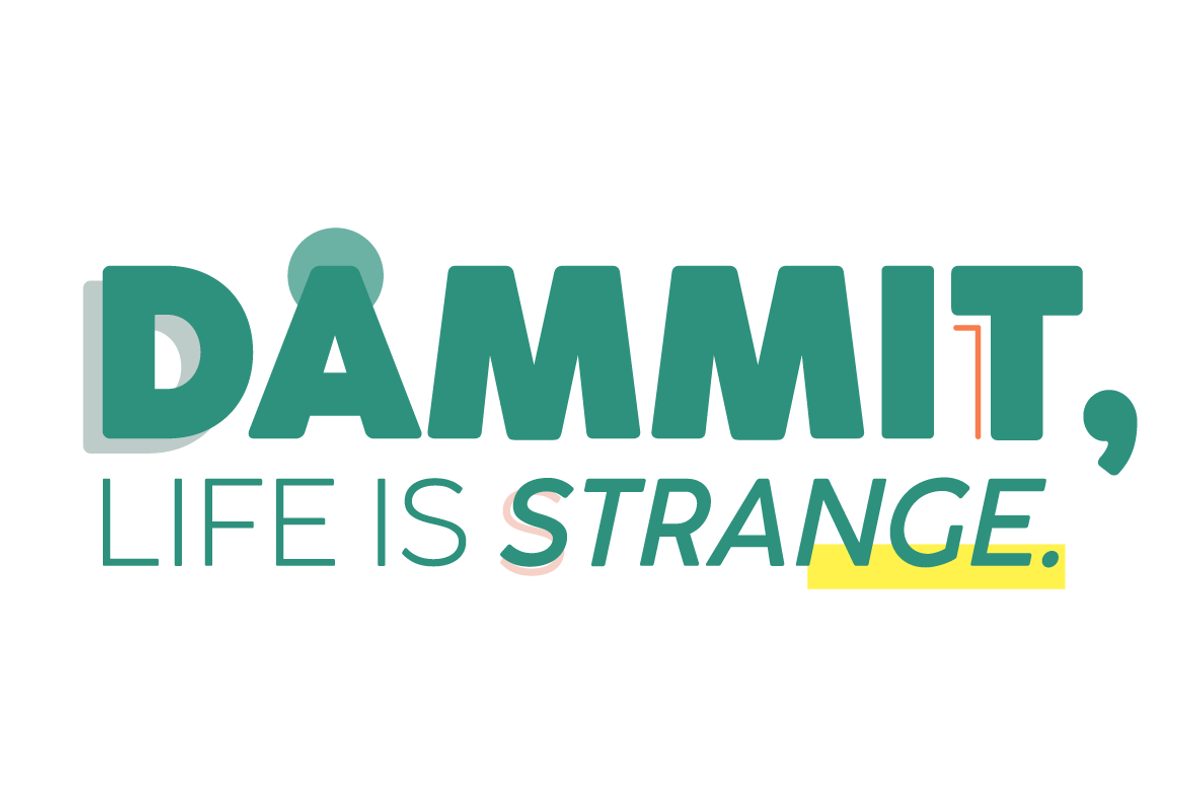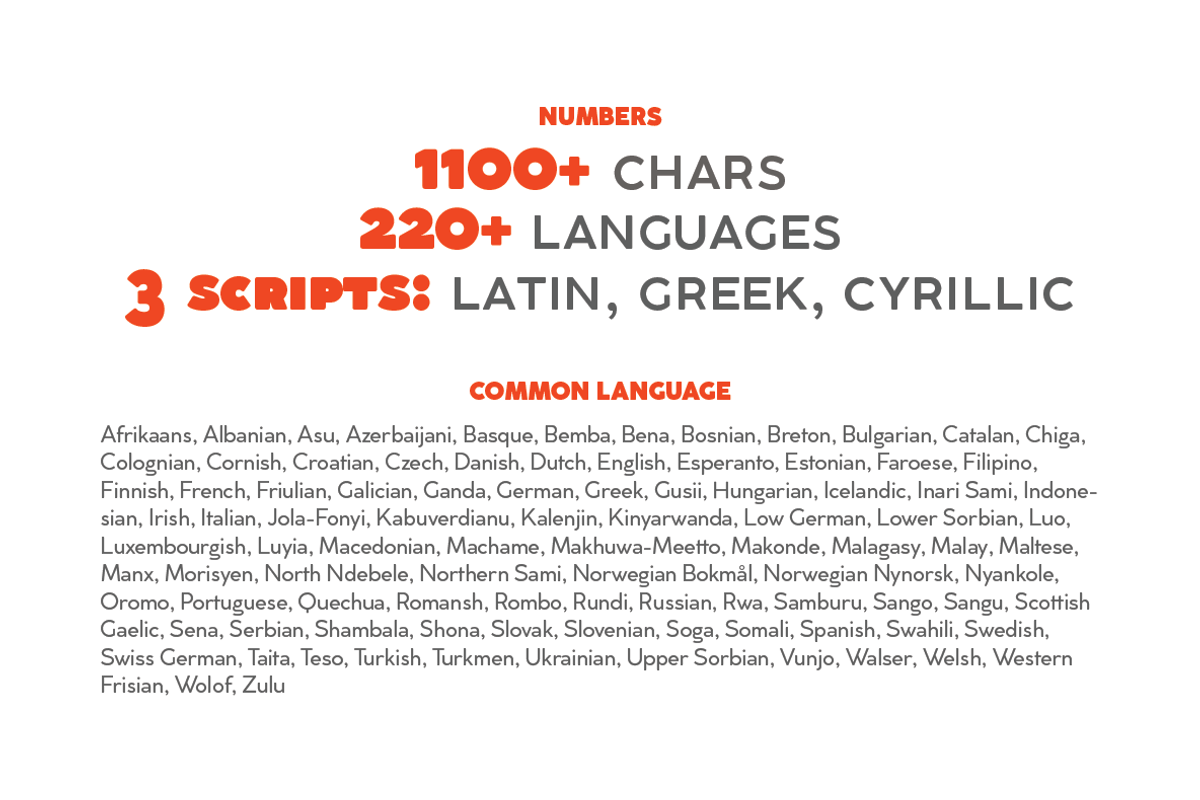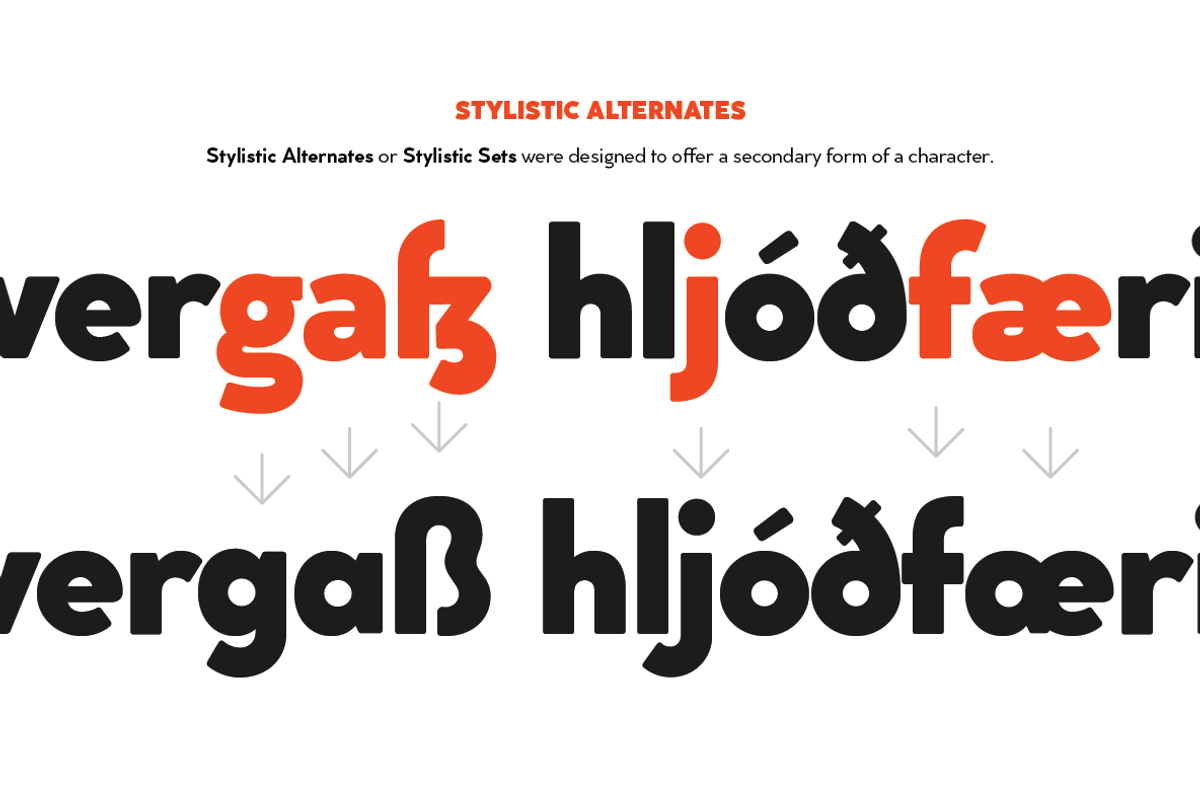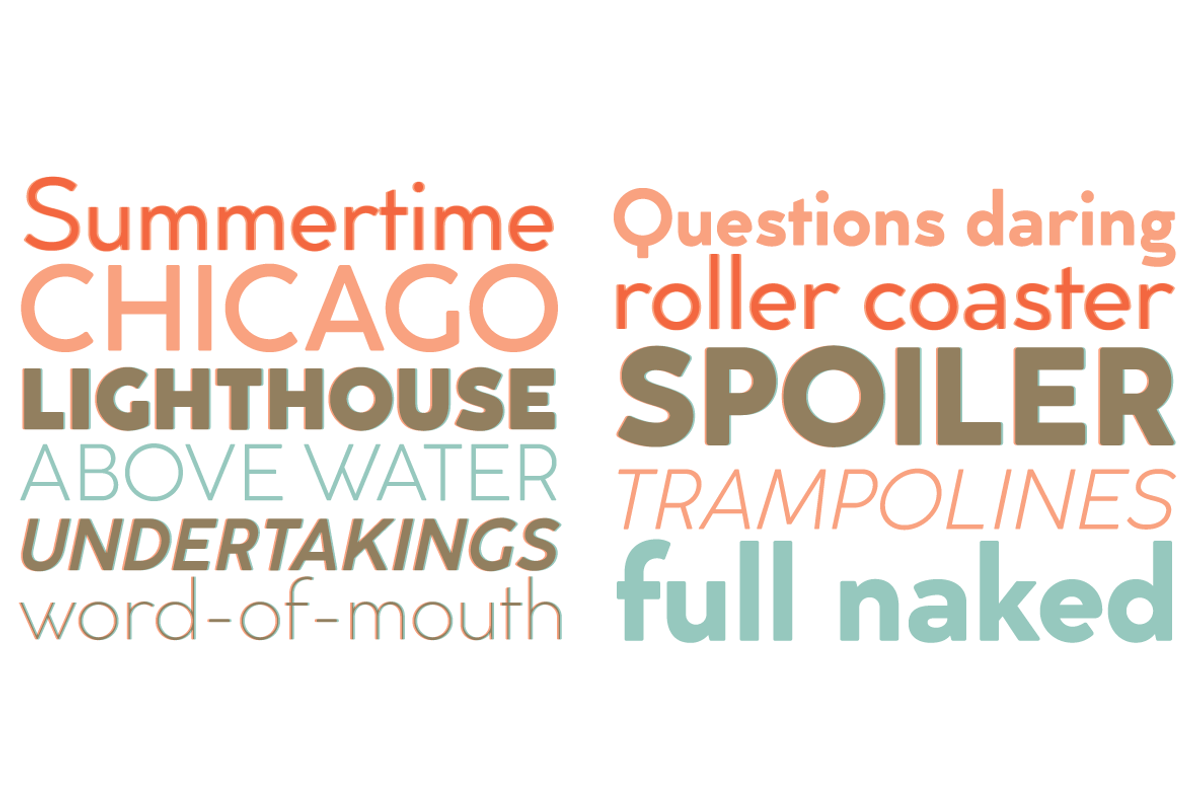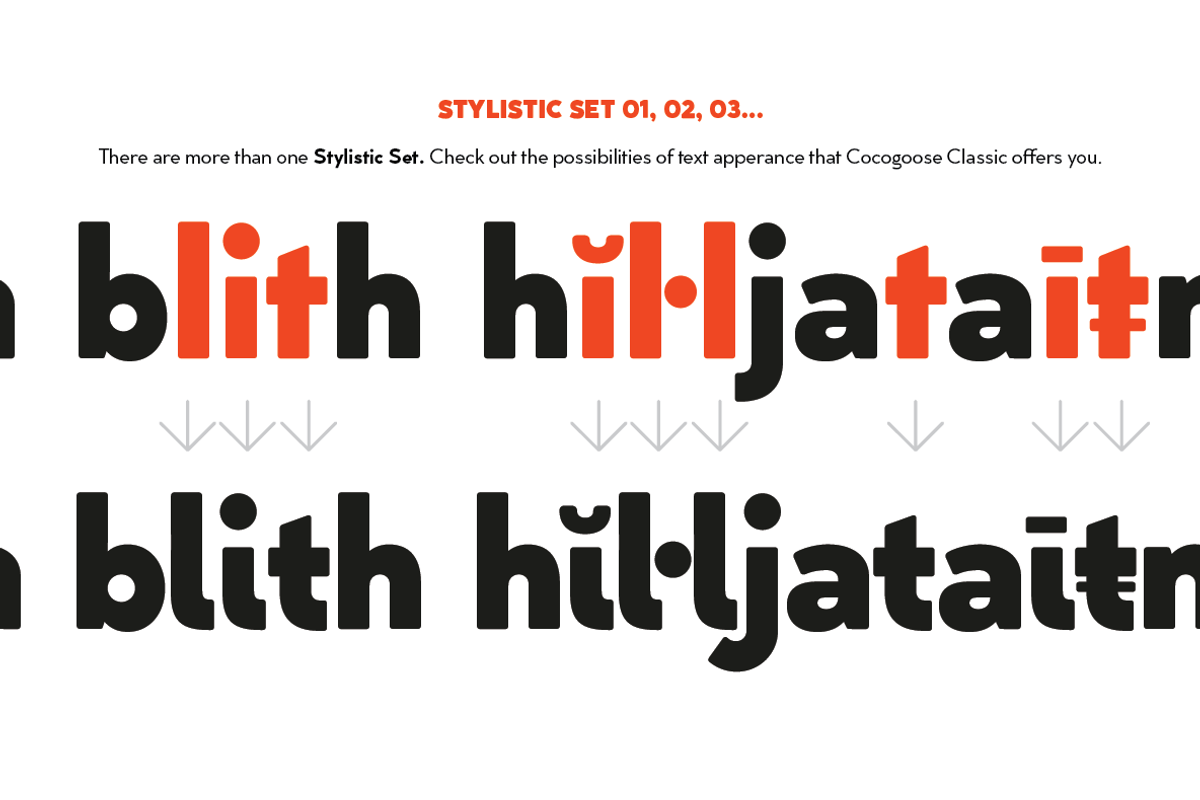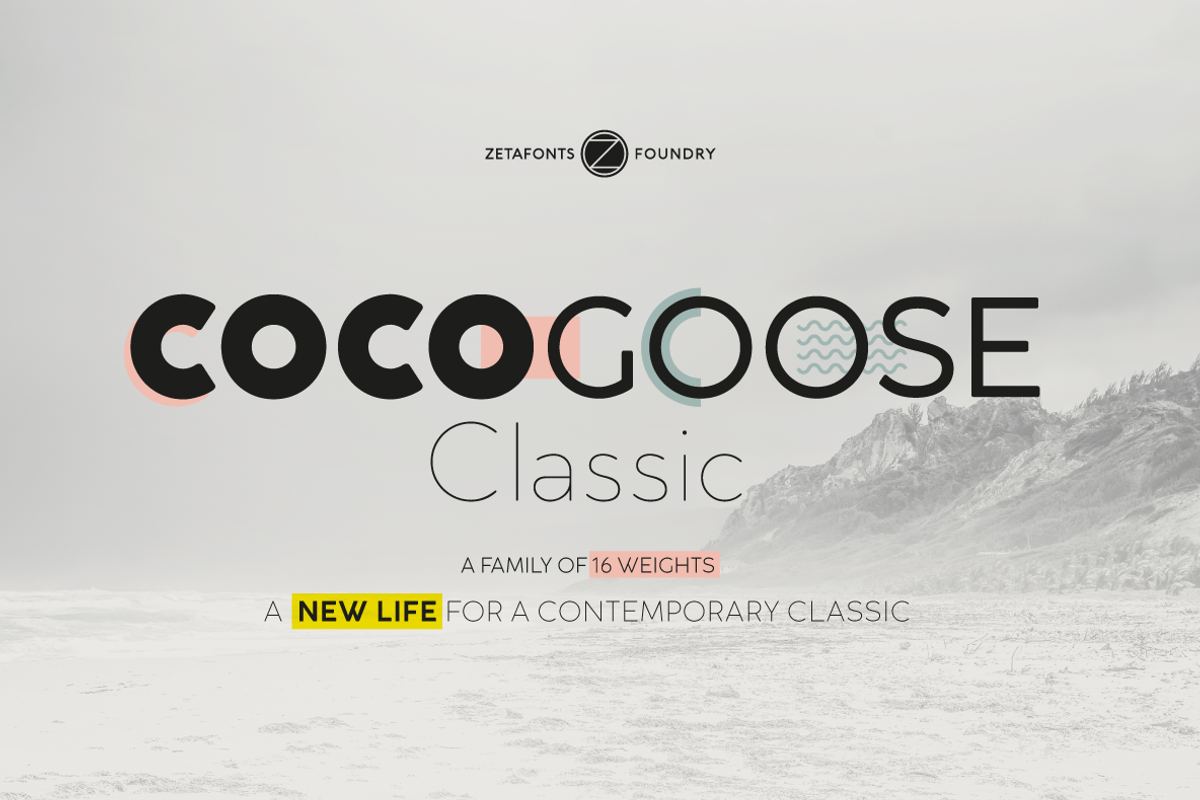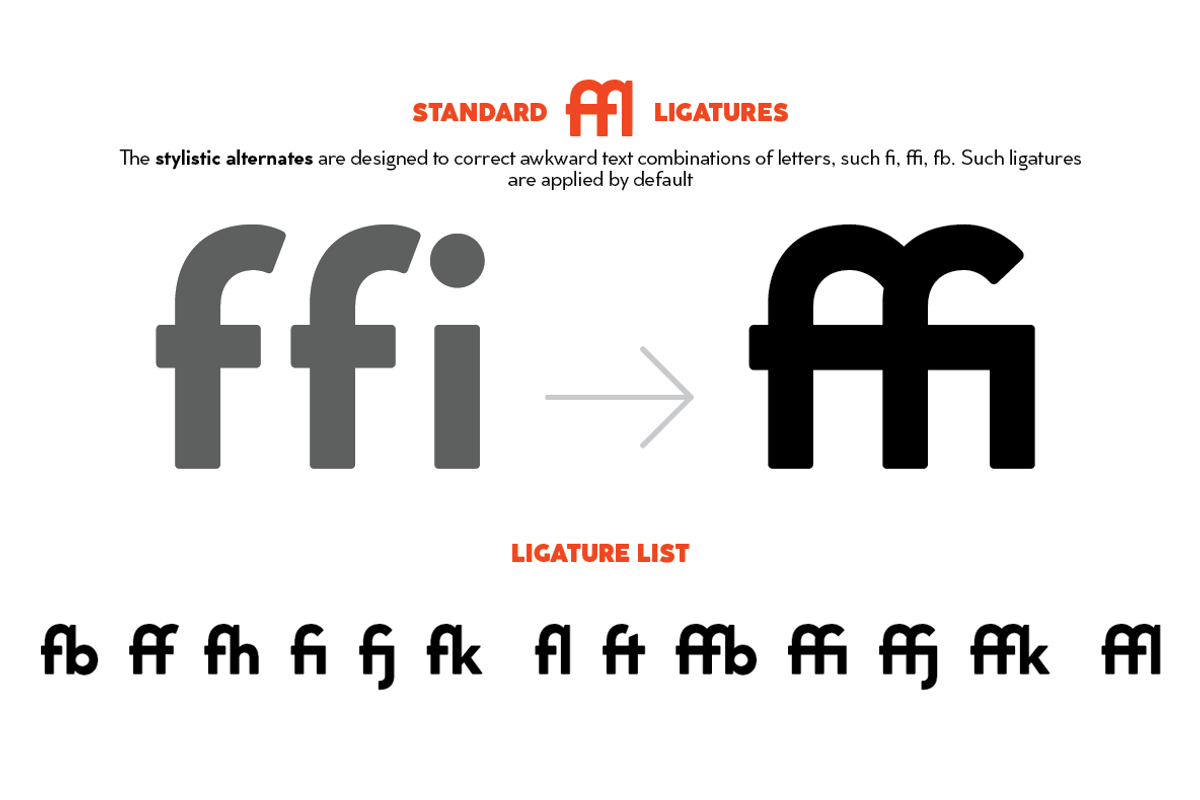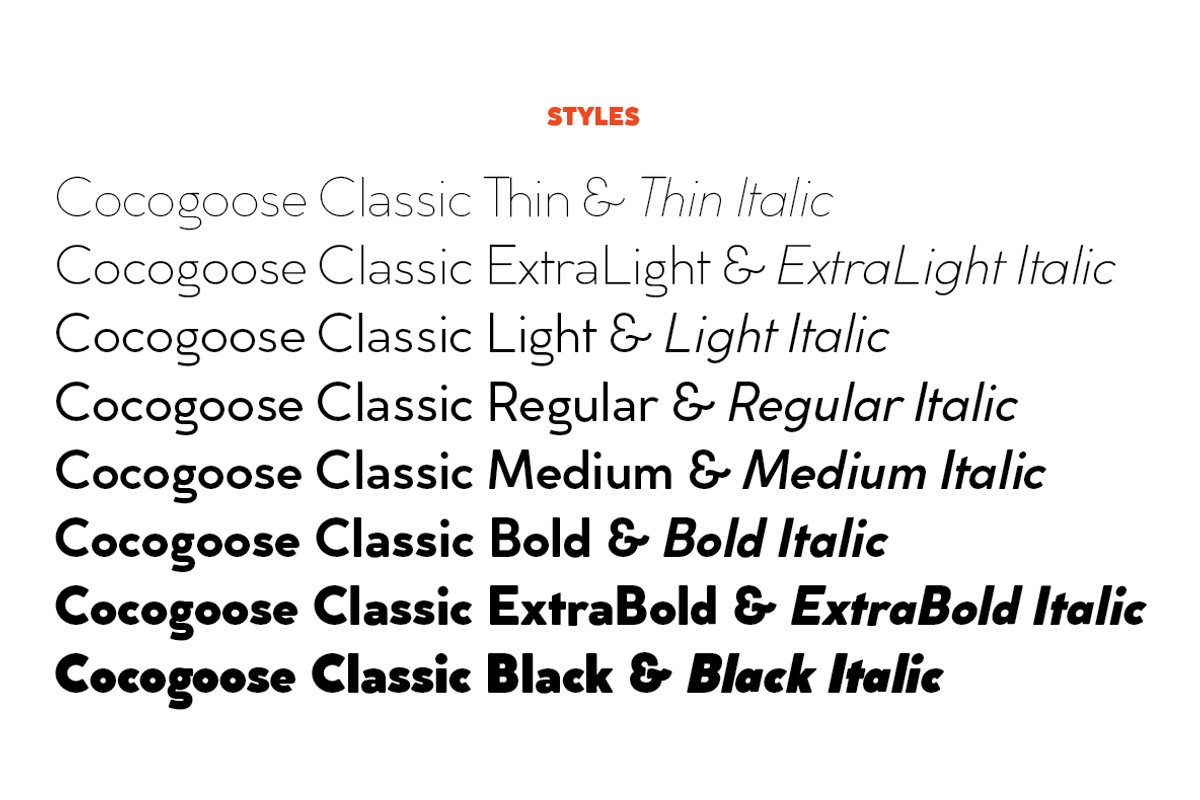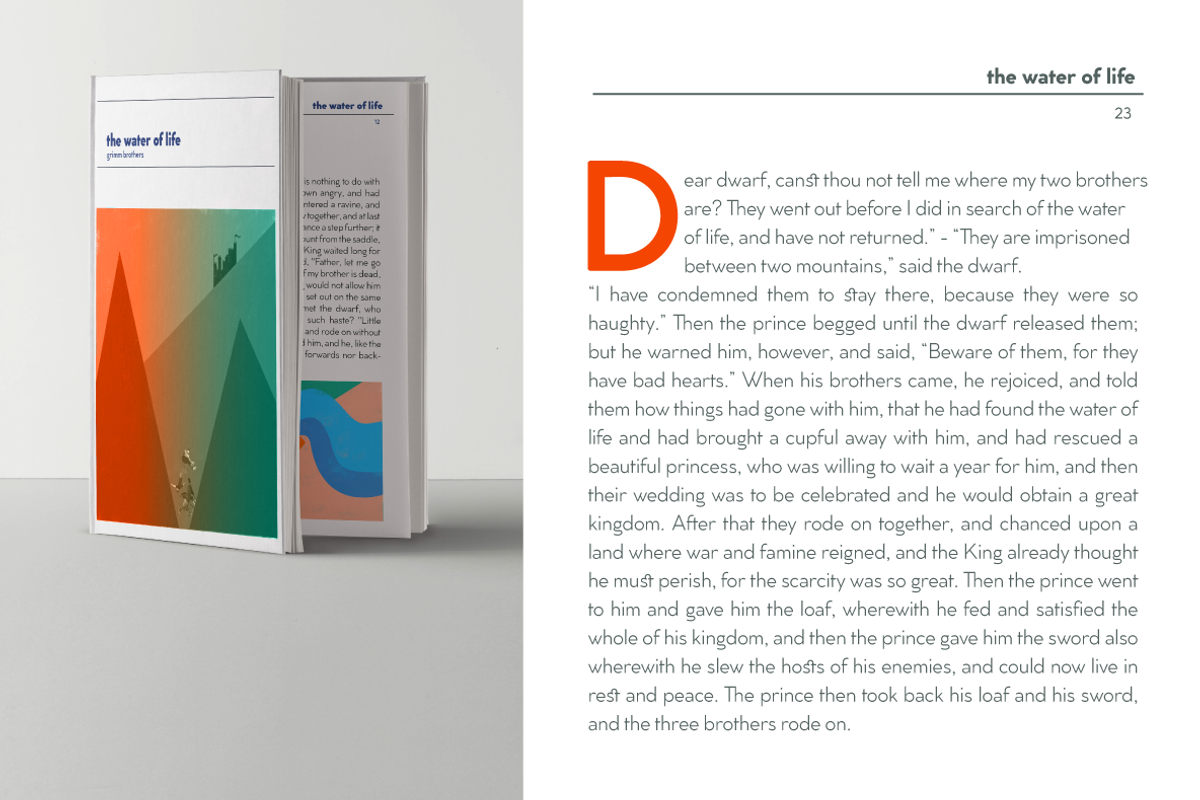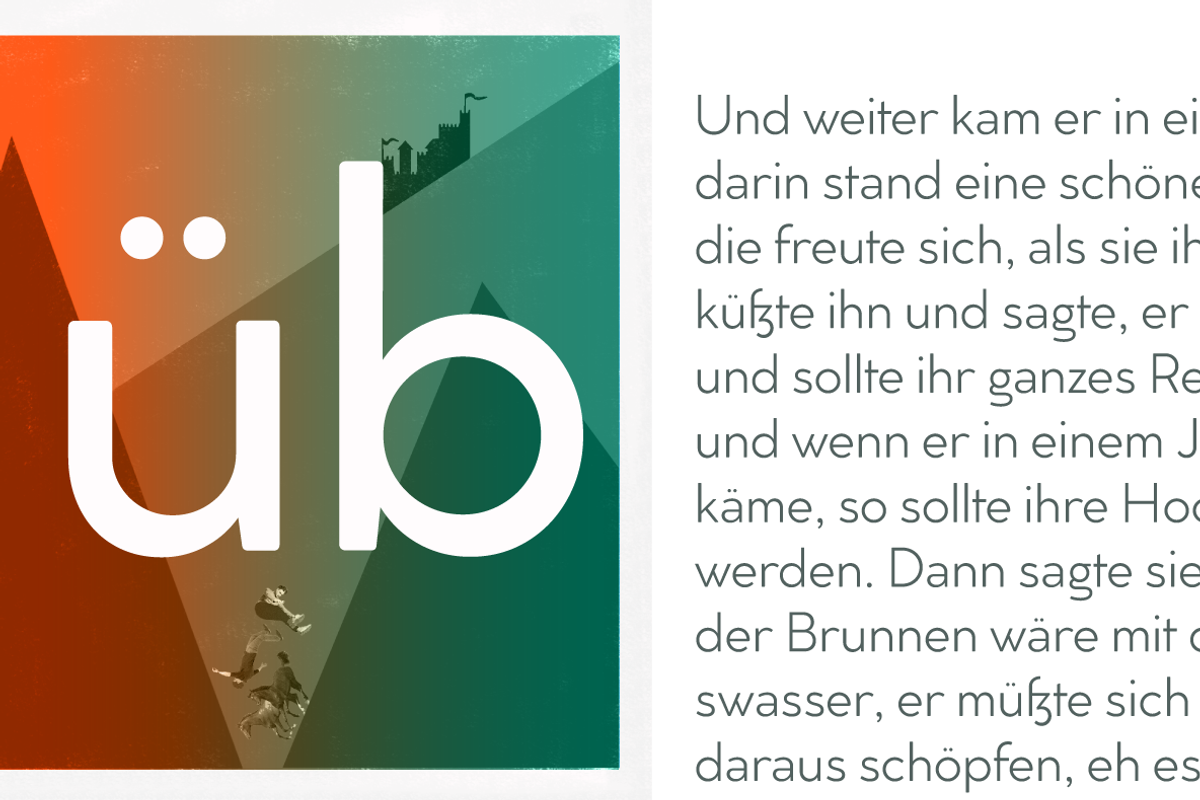
Created as a display typeface in 2012 by Cosimo Lorenzo Pancini, Cocogoose is one of Zetafonts most loved typefaces. A sans serif typeface of geometric proportions, with very low contrast and slightly rounded corners, it was the first typeface to be produced in the Coco series, an ongoing research on the design variation in gothic typefaces through the ages. Cocogoose extreme x-height and ultrabold weight (with regular being comparable to heavy weights of other typefaces), have since then made it very popular for effective display and logo use, also thanks to decorative versions like Cocogoose Letterpress. Since 2016, Andrea Tartarelli has been improving the typeface expanding the original glyph set to include cyrillic and greek and adding extra weights, widths, and italics to the original family range, and bringing Cocogoose to an impressive count of 52 variants. In 2019, Francesco Canovaro has teamed with Andrea Tartarelli and Cosimo Lorenzo Pancini to create a new variant subfamily: Cocogoose Classic, featuring 8 weights and matching italics. Cocogoose Classic keeps the original design for uppercase characters while developing a new design for lowercase, with a smaller x-height, round dots and expanded open-type features, including positional numerals, alternate forms, and extended ligatures and bringing the glyph count to over 1000 characters.